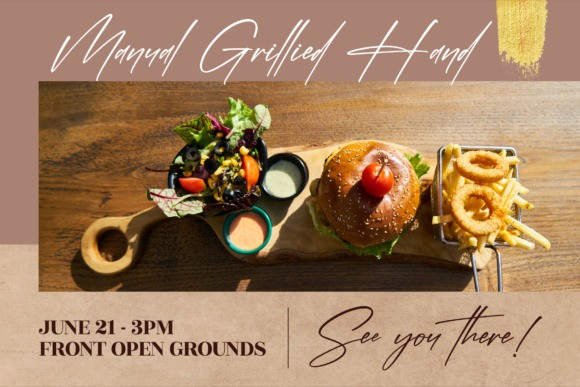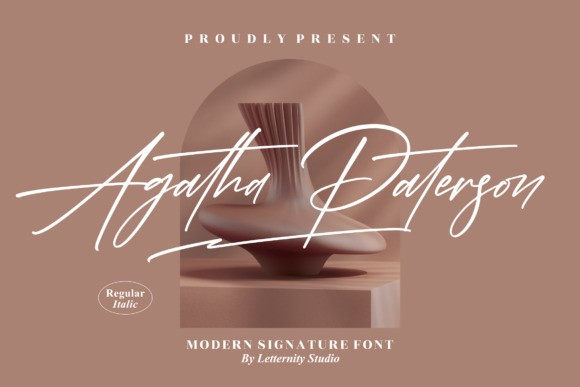
Agatha Paterson Font
Agatha Paterson Font is a thin lettered and graceful script font. Fall for its ravishing style and use it to create gorgeous wedding invitations, beautiful stationary art, eye-catching social media posts, and much more!